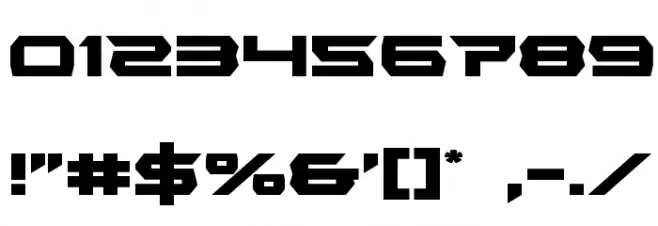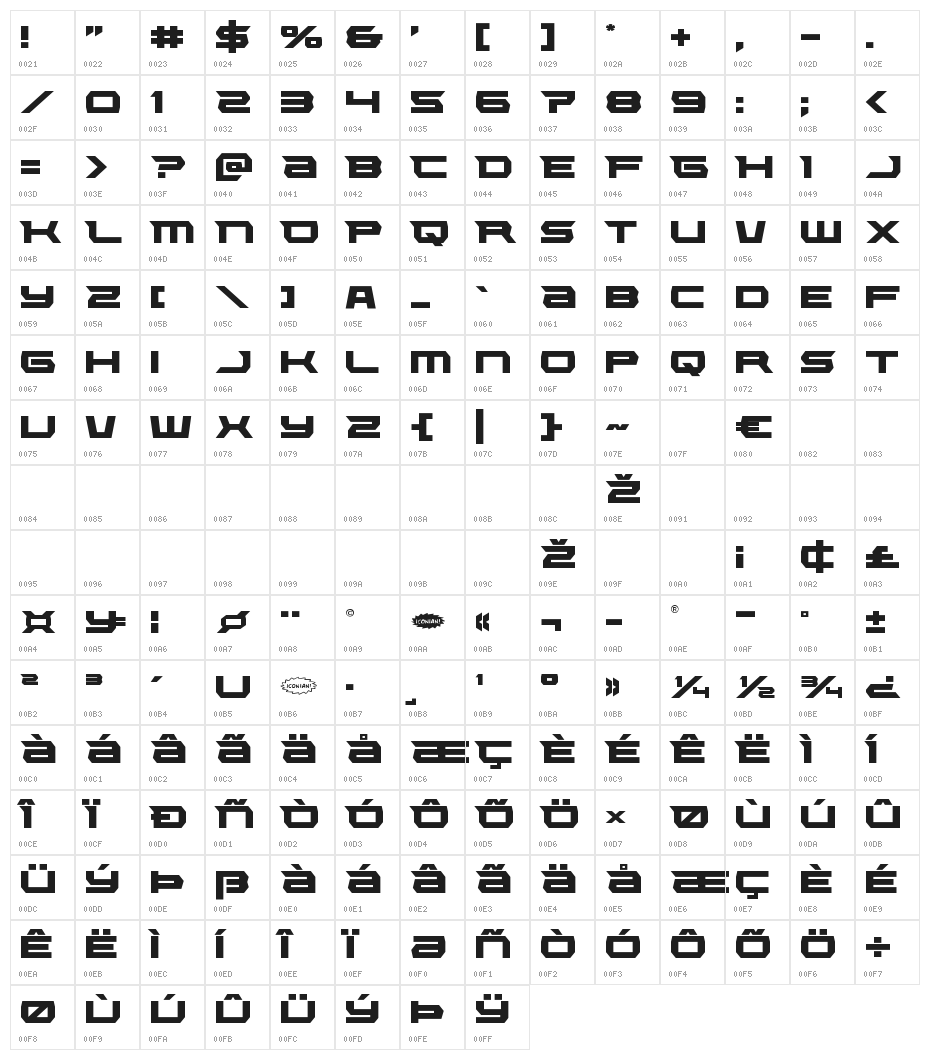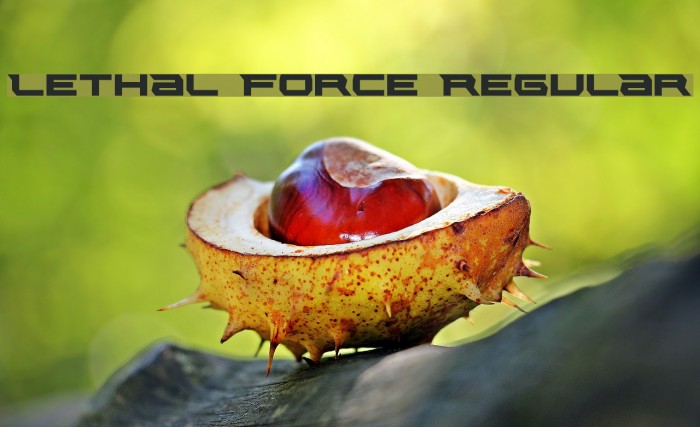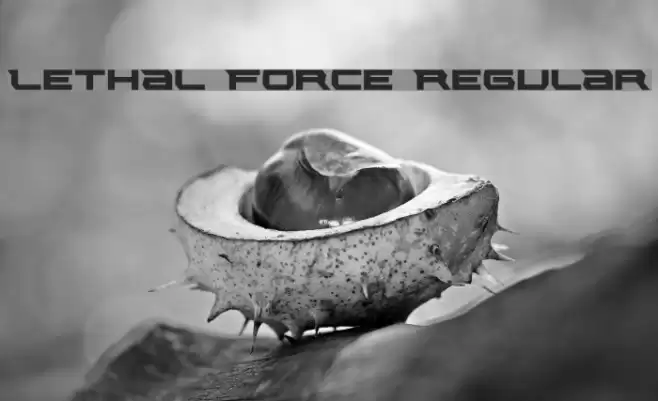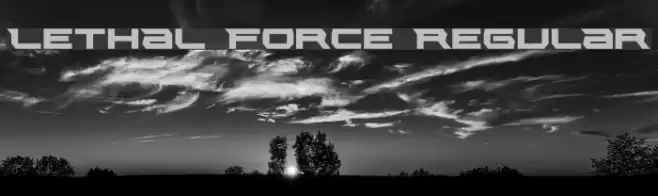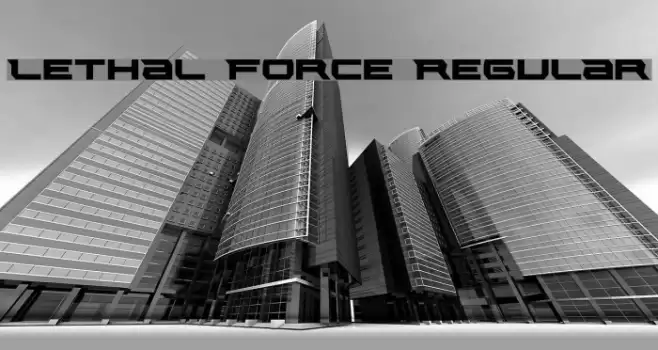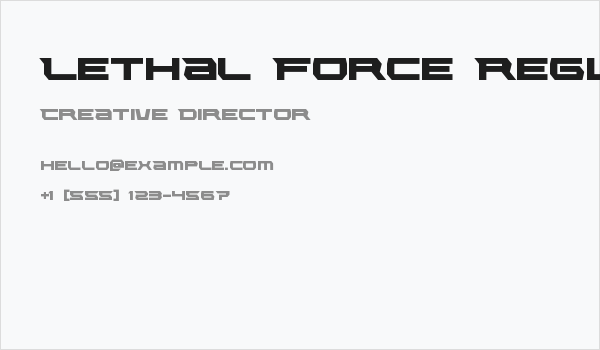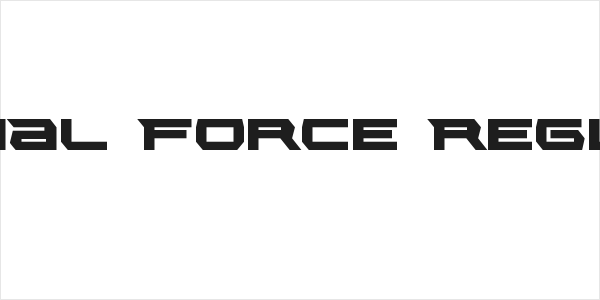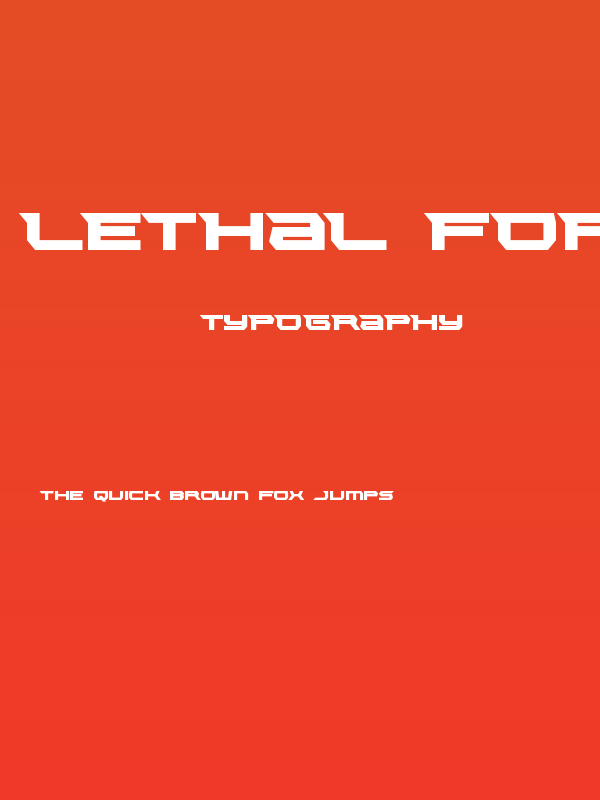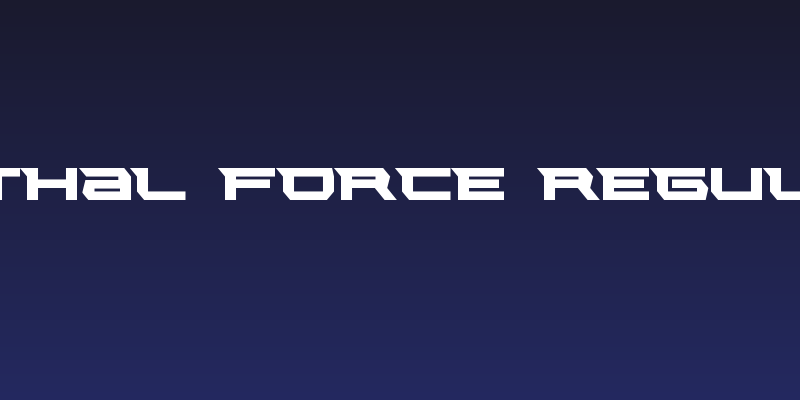
Lethal Force Regular Font
Lethal Force Regular Description
This font features a bold, futuristic design with sharp, angular edges and a geometric structure. The characters are uniform in height, creating a cohesive and striking appearance. The uppercase and lowercase letters maintain a consistent style, with the lowercase mirroring the uppercase in form and size. Numbers and special characters follow the same angular theme, enhancing the overall aesthetic. The font's design is reminiscent of digital or sci-fi themes, making it ideal for projects that require a modern and edgy look.
| Proposed Projects | Ideal for sci-fi themed projects, video game titles, tech branding, and futuristic posters. |